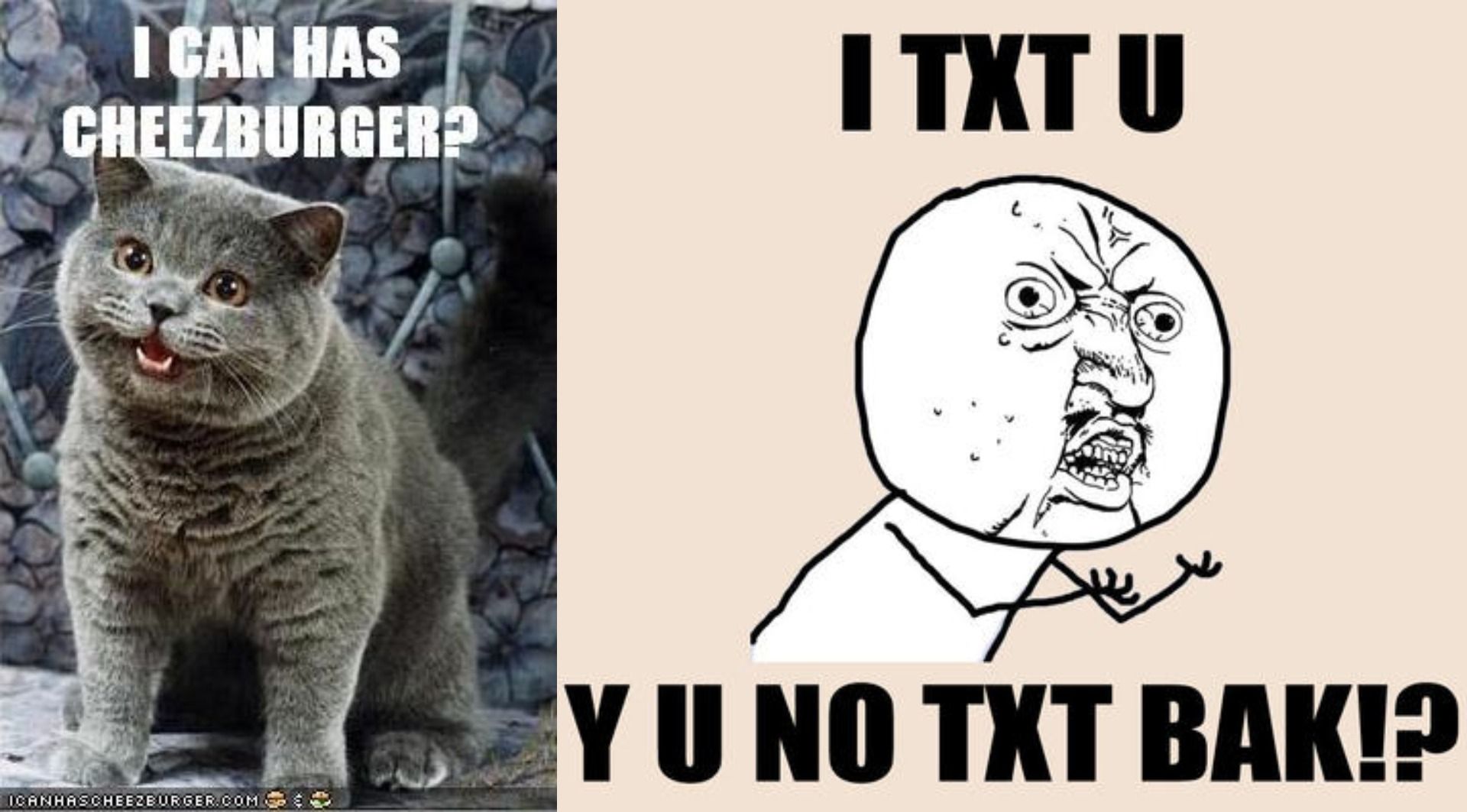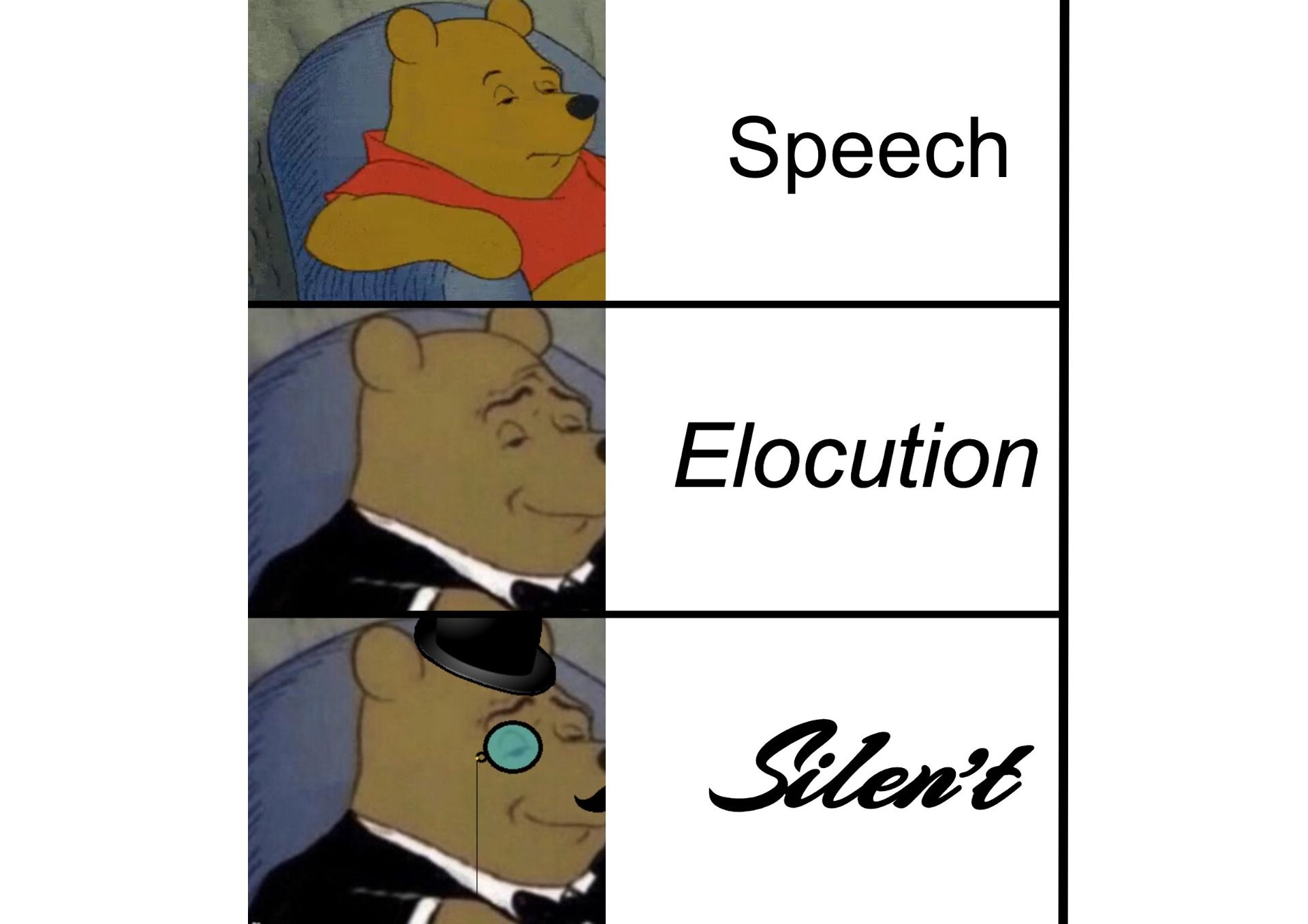
Memes are social information hybrids: part image, part text. Sometimes they have other parts, but they almost always have these two.
The images are instantly recognizable – Doge Shibe, Hide the Pain Harold, Kermit the Frog, Distracted Boyfriend – and the phrases are, too. “Me rn,” “ayyy lmao,” “very woof, much meme,” and “but that’s none of my business” have become permanent fixtures in the public vernacular.
But what about the text style? Font and text style have a large role in the memes we know and love. I’ll give you a brief guide to the most common meme fonts, how they’re used, and the easiest ways to make your meme text pop.
The Original: IMPACT
Impact font is the “classic” meme font. The first globally viral meme, Happy Cat, was simply *said cat* with “I CAN HAS CHEEZBURGER?” blazoned across the top of the photo in white, all-caps Impact. Ever since, the font has defined the mainstream meme style, from “Y U NO” to the captions of your favorite SpongeBob image macro.
Impact is by far the most popular font used on Kapwing's meme maker (surprising, since Arial is the default).
Comic Sans MS
Comic Sans is a meme of its own, really. It evokes the simpler internet culture of the early 2000’s, when the casual, fun font was once acceptable for non-ironic usage. Now it’s a sort of “Boomer” font. But Comic Sans also has some special, specific roles in meme culture.
The Doge Shibe meme family, for instance, is immediately recognizable for its use of brightly colored Comic Sans floating text. To use another font in a Doge meme would be as sacrilegious as correctly using its intensifying adjectives and adverbs correctly.
Animated Text/WordArt
While abstract or surreal memes also occasionally use Comic Sans, they're more often associated with with animated text or WordArt features, in obscure, almost unintelligible meme canvases.
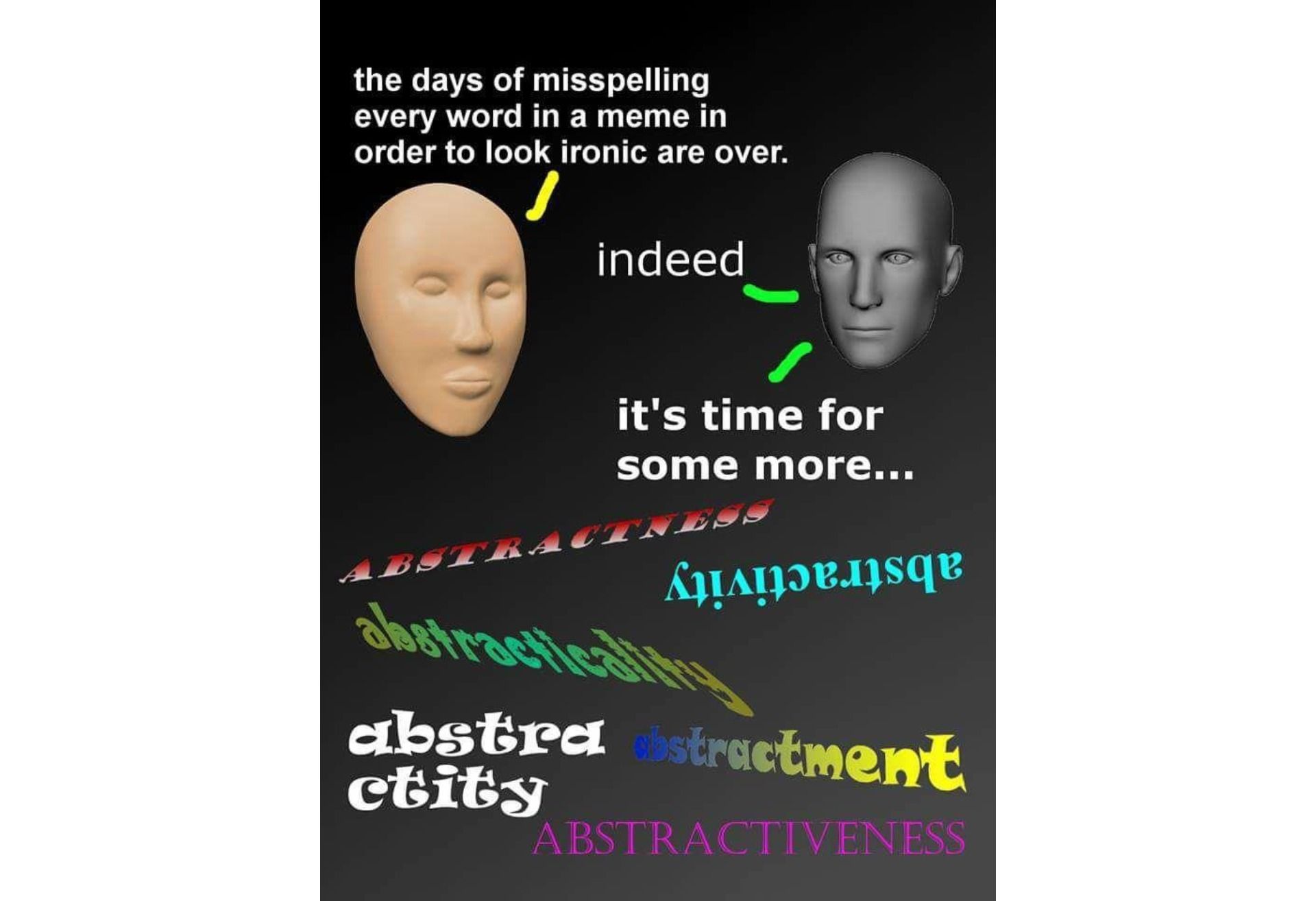
What once occupied strange, sparsely populated corners of the internet has now approached the mainstream, and these types of absurdist memes are becoming more and more recognizable.
Cursive or Calligraphic Scripts
Over the last two years, two separate meme families have grown in popularity using various “fancy” fonts. The “Galaxy Brain” meme sometimes uses fancy fonts for the most big-brained ideas, and the “Fancy Pooh” meme requires cursive or calligraphic fonts for its sophisticated variants. Is the font you're using extremely elegant? Would it require years of training to write by hand? Is it nearly illegible? The more effort required to read it, the better.
Try fonts like Dancing Script or Satisfy to get the fancy effect. Or, just add an Italic styling to Arial or Times New Roman.
Arial
When in doubt, use Arial. Really. Impact may seem like the go-to font for memes, but you should avoid it if you don’t want your meme to feel like a 2006 image macro. Other plain, unassuming fonts have their hang-ups, as well. Times? Too corporate. Helvetica? Too hip. Courier? Almost a plaintext meme of its own. Arial is the way to go, if you want your picture and caption to be the center of attention in your meme.
Montserrat
Modern meme makers are naming Montserrat as a favorite font. Montserrat is thinner and more square than Arial, giving your memes a more modern vibe. It has become popular because it's very similar to the Twitter font so that it blends in with Tweet reposts and screenshot memes.
Making Memes With Custom Fonts
Now that you know the most important meme fonts and when to use them, you need to know how to use them. I recommend using Kapwing – it was designed as a streamlined meme maker, and it gives you hundreds of font options to choose from!
To make your meme, go to Kapwing.com and start with the Studio. You can choose an existing meme template in the “Collections” page, then “Meme Templates." From this meme library, you can start with a customizable template of a popular meme.
If you want to make your meme from scratch, click “Start Editing” from the home page. If you’re already signed in, click “New Project” and “Start with Studio.”
In the Studio, you can upload any image, video or GIF from your device or any web location. Once your file is in the Studio, you may want to click one of the “Add Padding” options on the right side of the window, depending on the type of meme you’re making.
To add a text box, select “Text” from the upper toolbar. Choose the button that says “Arial” from the right side of the window and either browse the most popular fonts, or click “Sort A-Z” to look through the comprehensive font list. You can even add custom animations to your text by clicking “Animate.”
Kapwing has all of the Google fonts, so you can choose from thousands of pre-loaded font options. Search for the meme font that you want to use or browse through the font library by scrolling.